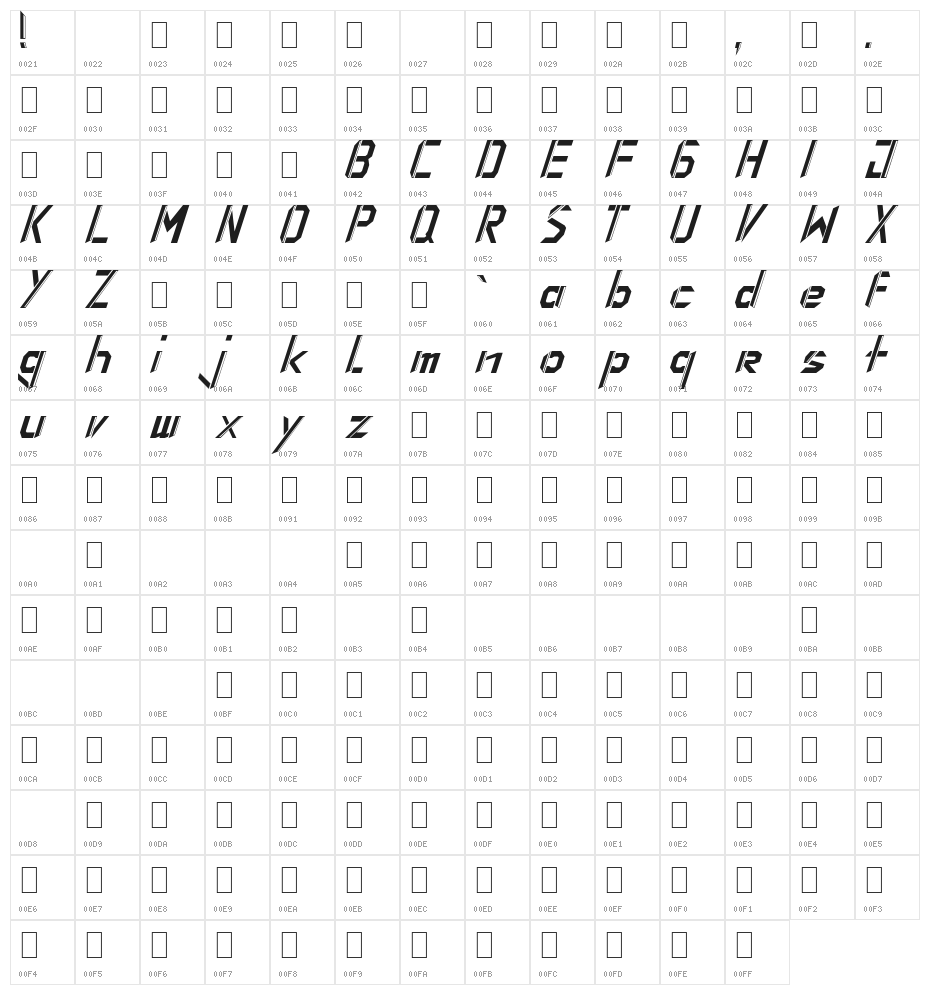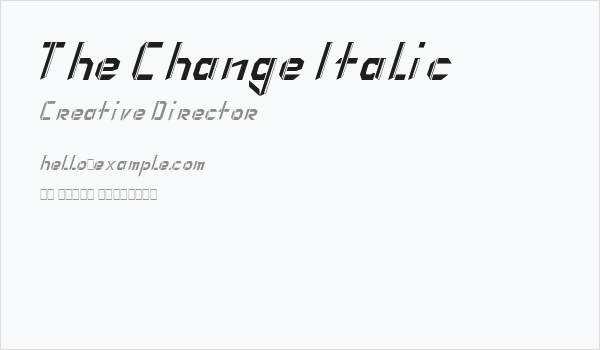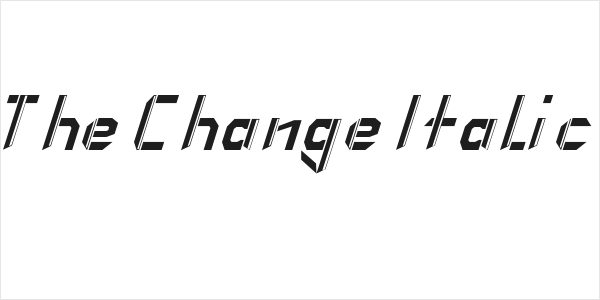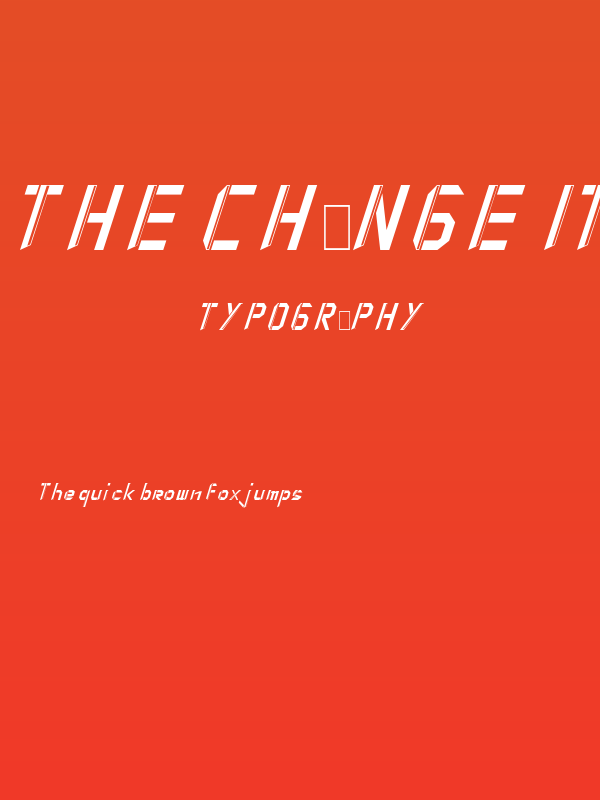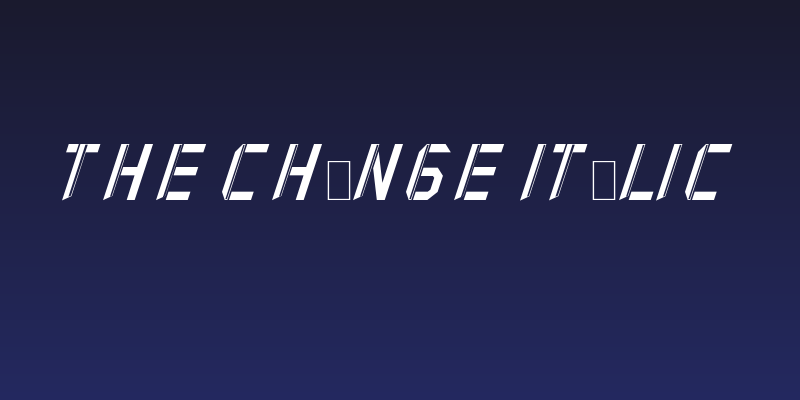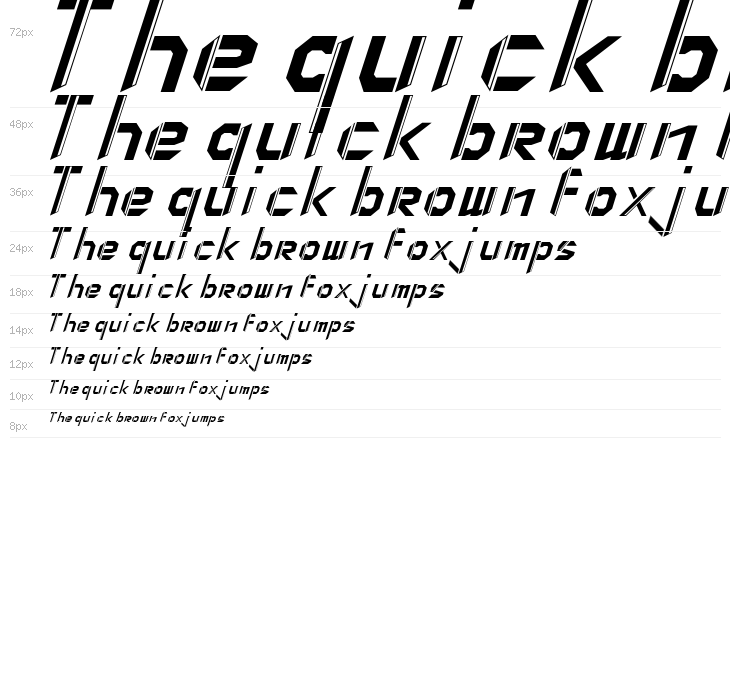
The Change Italic Font
The Change Italic Description
This font features a dynamic, italicized style with a futuristic and angular design. The characters are sharply cut with a distinct slant, giving a sense of motion and speed. The uppercase and lowercase letters maintain a consistent geometric form, with some letters featuring unique cuts and angles that add to the overall modern aesthetic. The numbers and special characters follow the same stylistic approach, ensuring uniformity across all glyphs. The font's bold and striking appearance makes it suitable for attention-grabbing designs.
Overall StyleFuturistic
Proposed ProjectsIdeal for sci-fi themed projects, modern branding, technology logos, and dynamic posters.